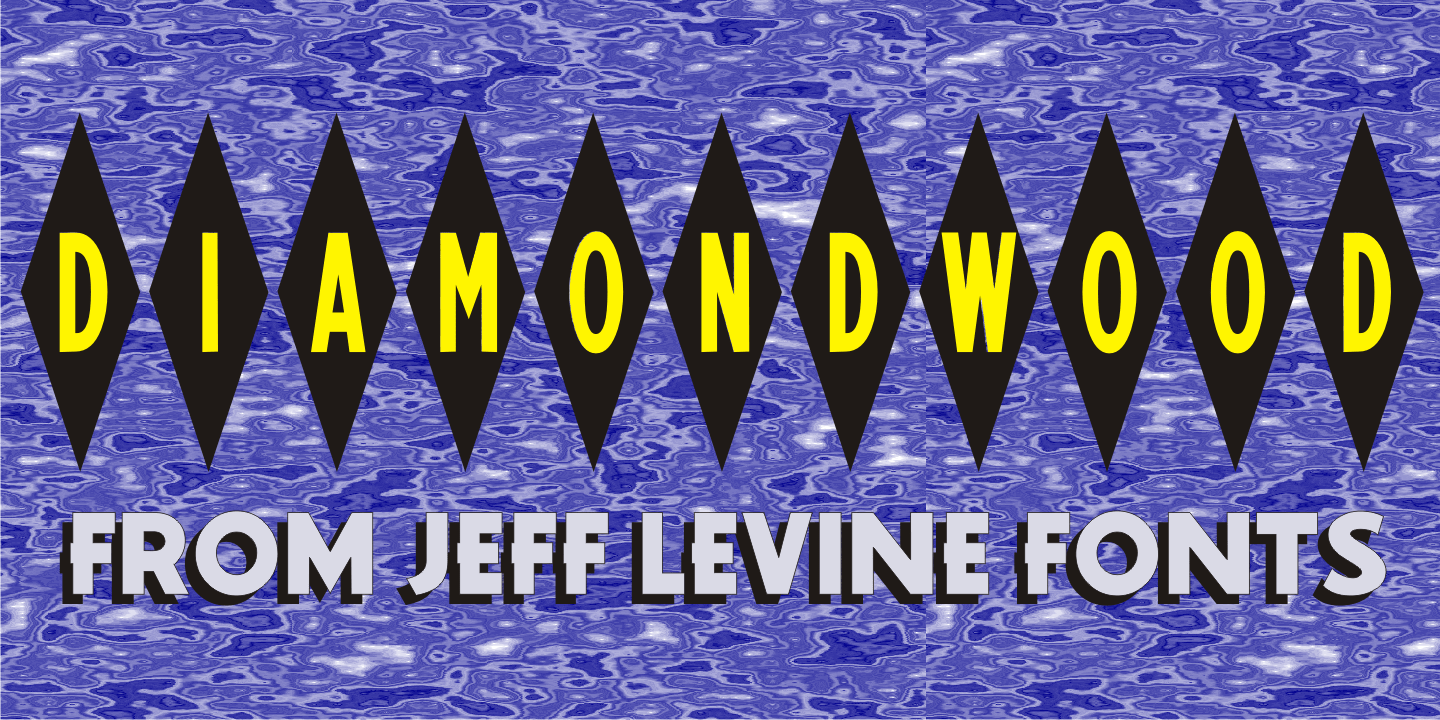
Diamondwood
Diamondwood JNL is based on examples of vintage wood type with condensed, elongated diamond shapes containing the various letters of the alphabet.